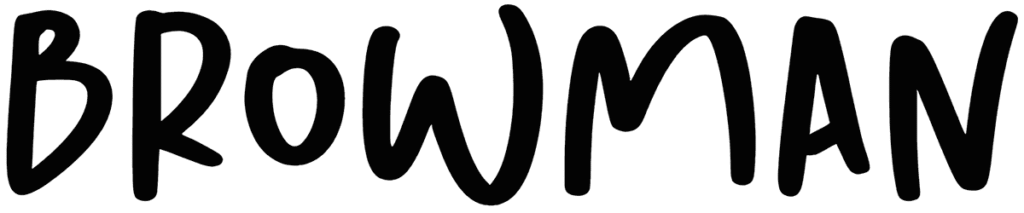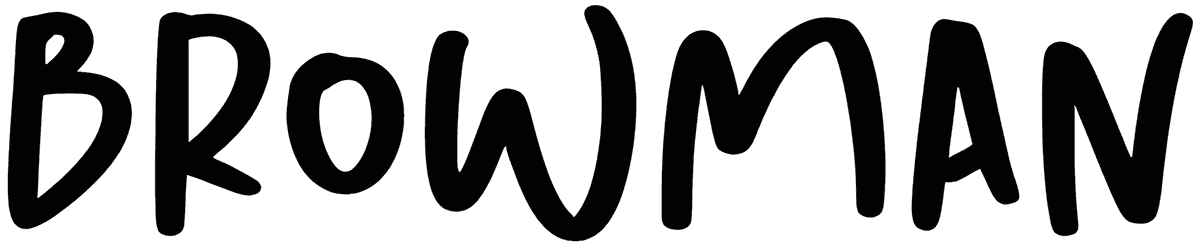
Browman Font
A script font like Browman, with its urban vibe, is a smart pick to reflect art and creativity. This bullet journal font doesn’t give you any offer for lowercase letters, but you don’t need to worry, supporting two sets of caps with distinct details would offset this lack.
Rely on your taste, Browman can enrich posters, comic book covers, cards, etc., with a street art effect and make them striking. So get cracking and take your presentation to an upper level!